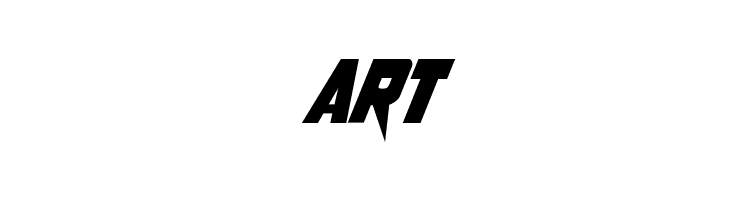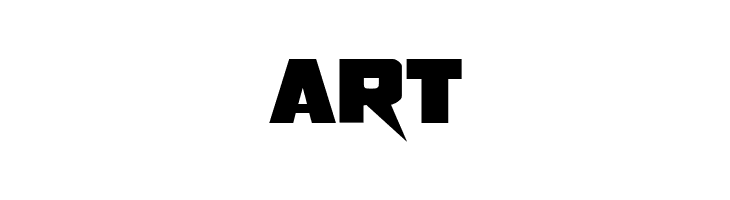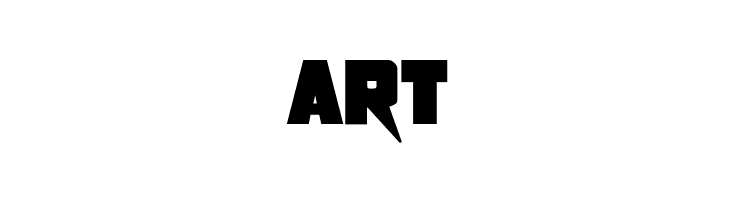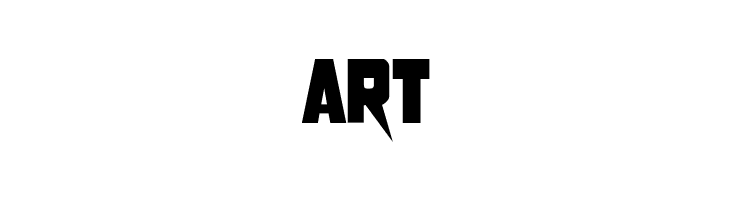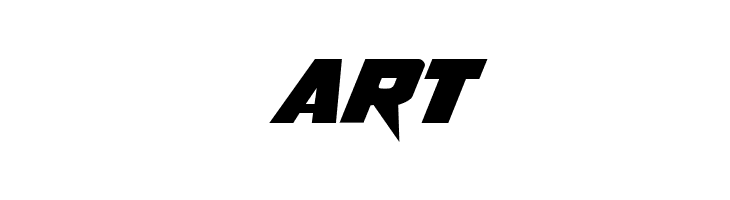
• Pistoleer 3D Regular
A bold, 3D outlined font with sharp, angular edges and a modern, futuristic style.
• Pistoleer Bold
A bold, angular font with sharp edges and a strong geometric style.
• Pistoleer Bold Italic
A bold, italicized font with sharp angles and high contrast, perfect for dynamic designs.
• Pistoleer Condensed
A bold, angular, and condensed font ideal for striking headlines.
• Pistoleer Condensed Italic
A bold, condensed, and italic font with sharp, angular edges and a modern, dynamic style.
• Pistoleer Expanded
A bold, angular font with a futuristic and dynamic design.
• Pistoleer Expanded Italic
A bold, expanded, and italicized font with sharp angles and high contrast.
• Pistoleer Italic
A bold, italic typeface with sharp, angular lines and a modern, energetic style.
• Pistoleer Laser Italic
A bold, italicized font with sharp, angular edges and a futuristic style.
• Pistoleer Laser Regular
A bold, futuristic font with sharp, angular edges and a sci-fi aesthetic.